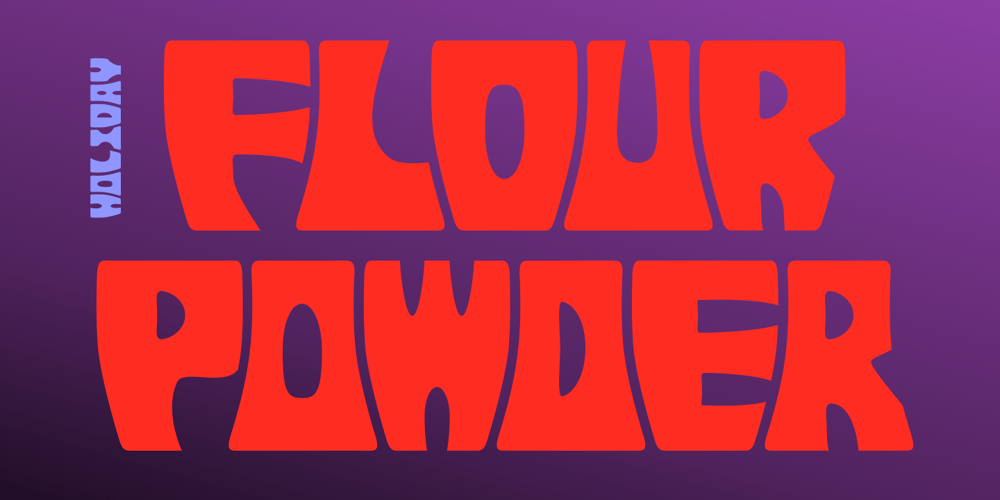
Caltic
Caltic font
Caltic Font Family was designed by Robert Schenk and published by Ingrimayne Type. Caltic contains 6 styles and family package options. Caltic-Holiday, Caltic-Festival, and Caltic-Straight are three eye-catching, very bold typefaces that are suitable for posters and signage. Caltic-Holiday and Caltic-Festival base letter shapes on trapezoids with curved sides but with curves that are reversed going from one to the other. Caltic-Straight has letters based on trapezoids with straight sides. None are suited for text and with their built-in spacing will not work as all upper-case or all lower-case. All three come in two widths, regular and wide, giving the Caltic family six members.Caltic has nothing to do with Celts. The Calt refers to the calt or contextual alternative OpenType feature that makes this typeface work. When the letters on the upper-case keys alternate with the letters on the lower-case keys, they fit snuggly together. As long as the user has a word processor that supports the contextual alternatives feature, there is no need for the user to alternate letters; the calt feature does it automatically.Although the fonts seem similar to hand-drawn lettering that was done on posters and signs during the hippie era of the 1960s and 1970s, I can find nothing quite like them. My inspiration for them is older, in a newspaper from 1932 that led to the typeface family PoultySign. Caltic (and Lentzers) are the result of seeing what else I could do with the inspiration that sprang from that 1932 newspaper.